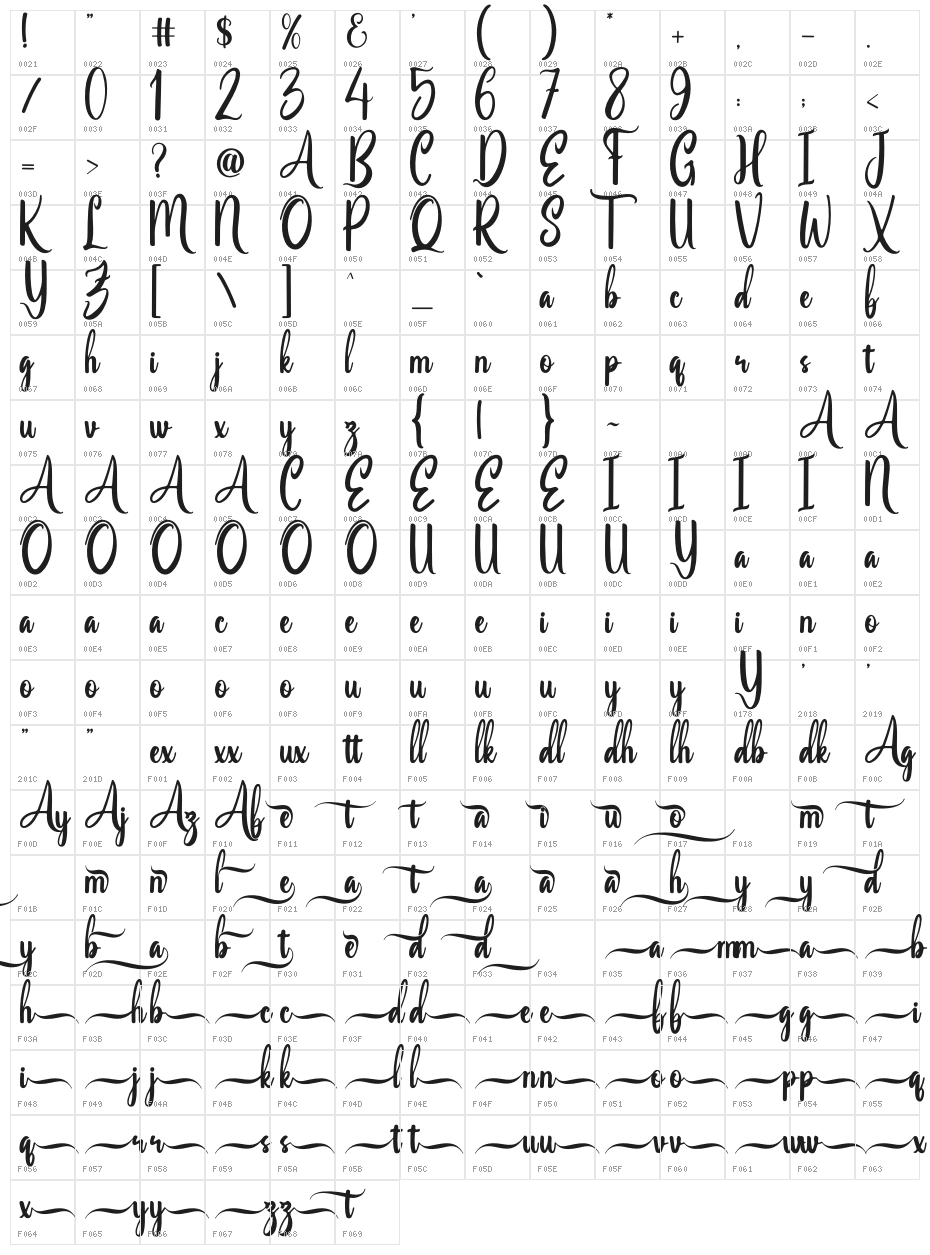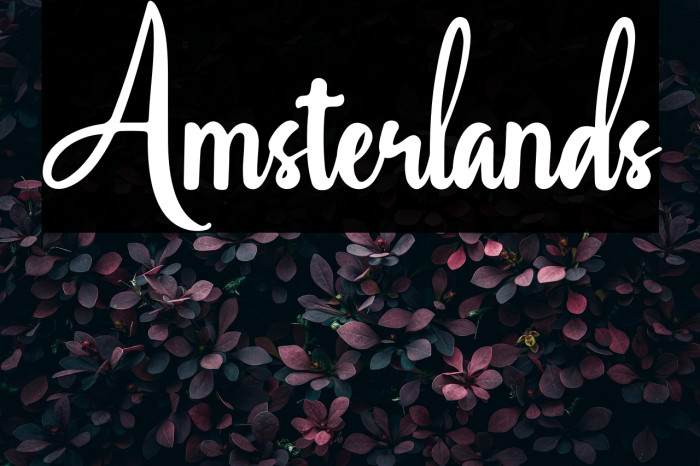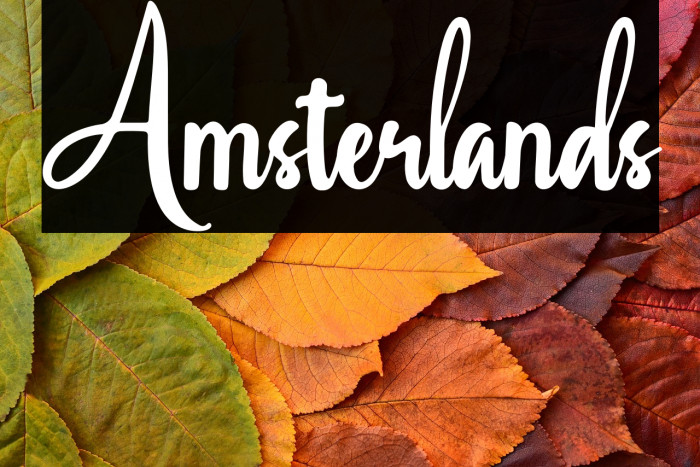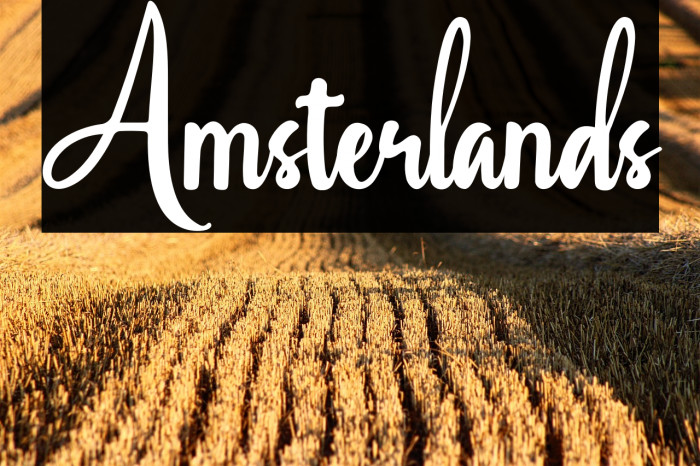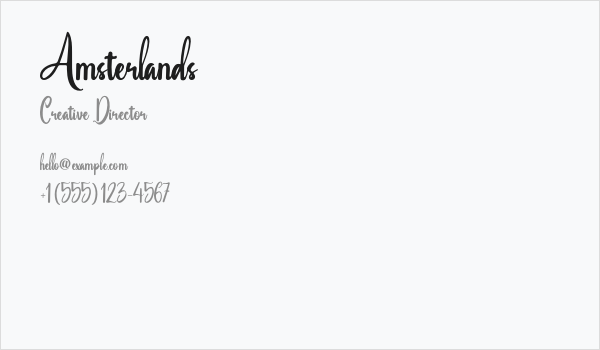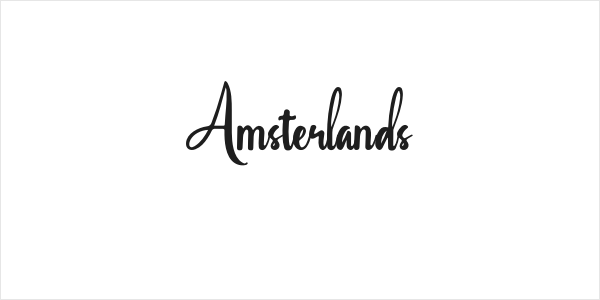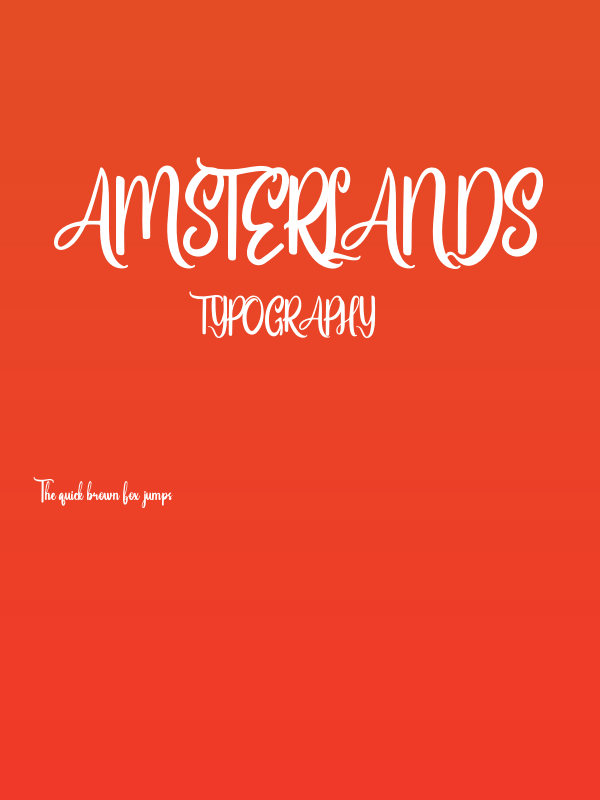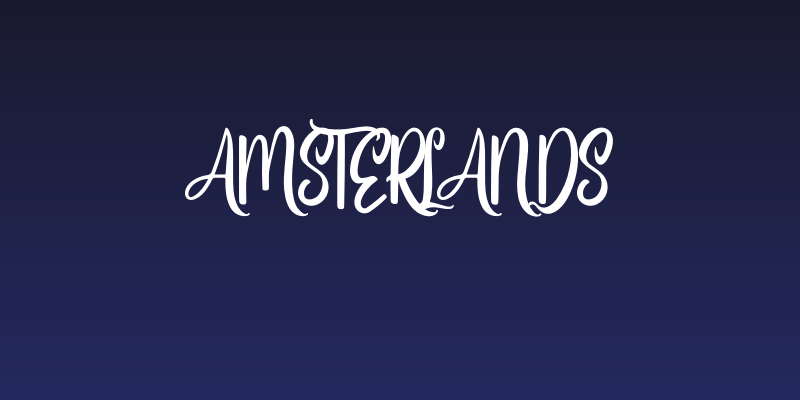
Amsterlands Font
Amsterlands Description
A playful, flowing script font with tall, narrow letterforms and pronounced loops, mimicking modern calligraphy with a hand-drawn, casual feel. The strokes are consistent in thickness, and the characters are closely spaced, giving a lively and energetic appearance.
| Overall Style | Decorative, Modern, Handwritten |
| Use Case | Logos, Headlines, Invitations, Decorative text |
| Proposed Projects | Greeting cards, invitations, branding, social media graphics, posters, and creative packaging. |